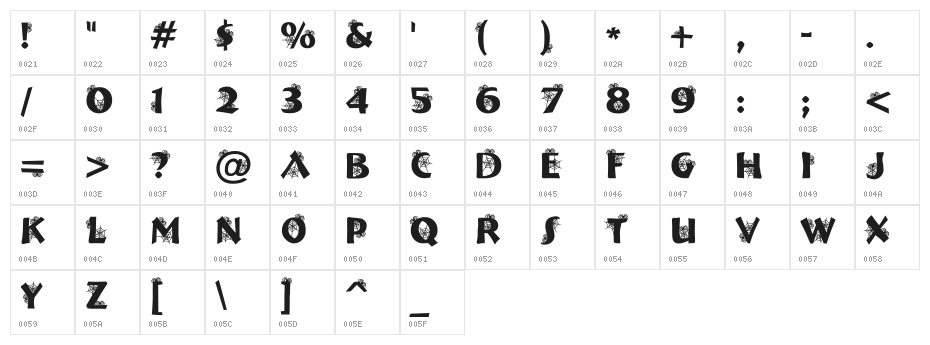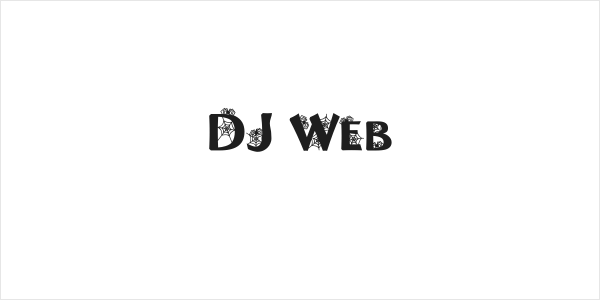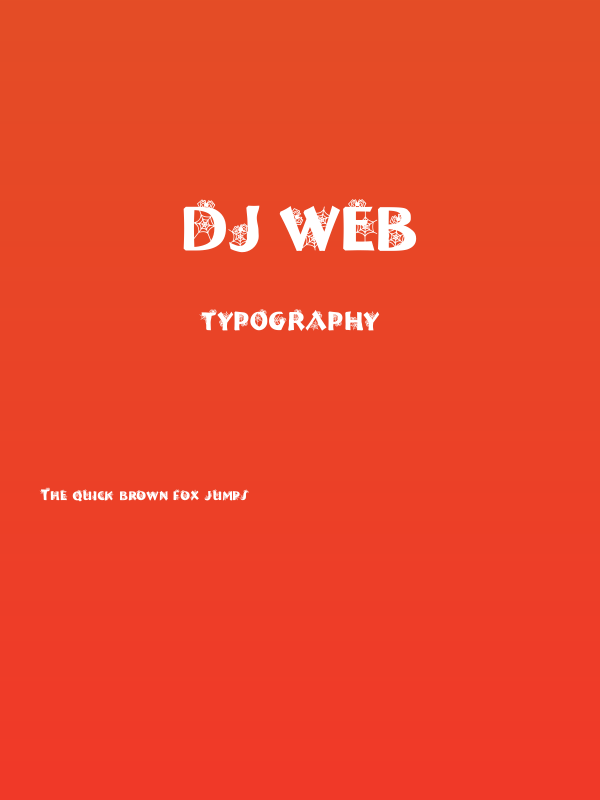
DJ Web Font
DJ Web Description
This font features a unique and playful design with spider web motifs integrated into each character, creating a spooky and whimsical appearance. The bold, angular letters are reminiscent of classic horror themes, making it perfect for Halloween or other themed events. The uppercase and lowercase letters maintain a consistent style, with the web details adding an extra layer of complexity and interest. The numbers and special characters are equally adorned, ensuring a cohesive look across all text elements.